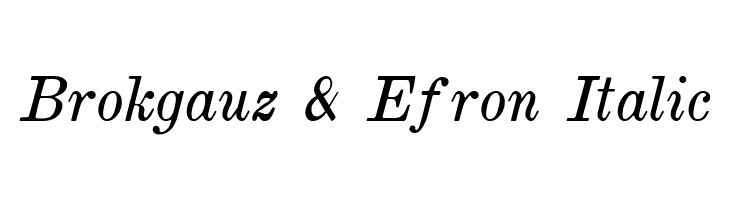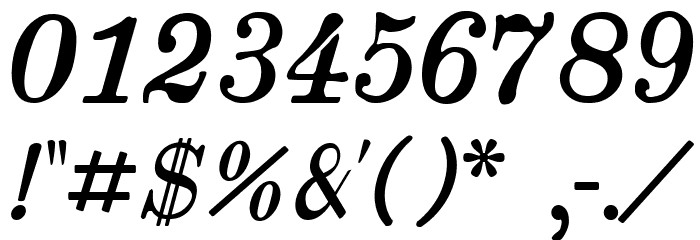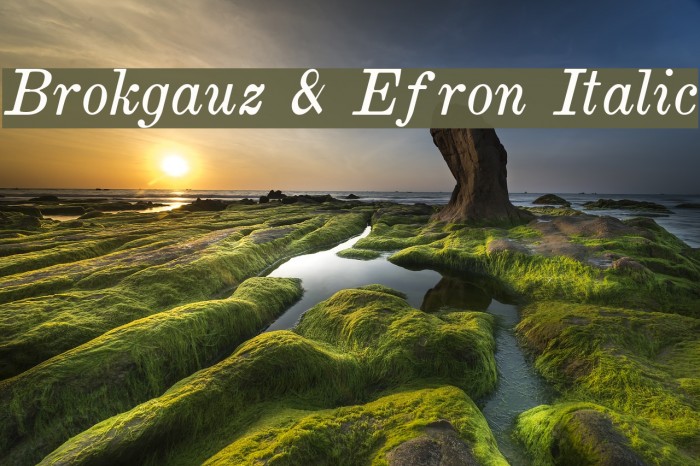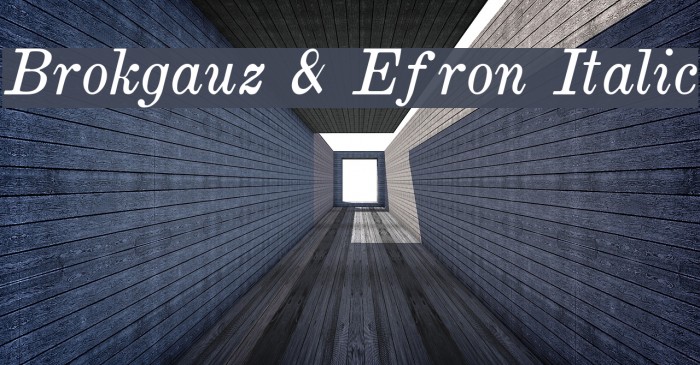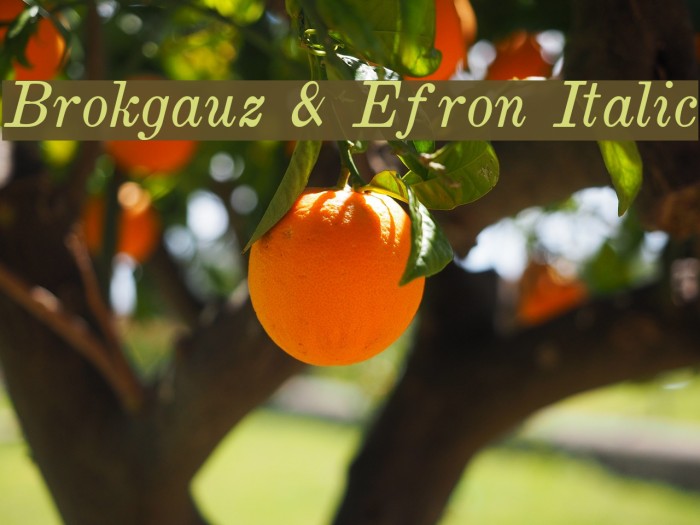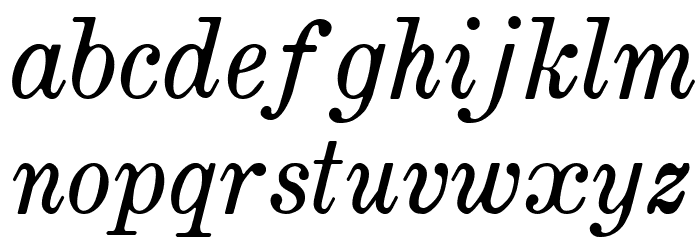
Brokgauz & Efron Italic Font
Brokgauz & Efron Italic Description
This elegant typeface features a classic italic style with a refined and sophisticated appearance. The letters are gracefully slanted, providing a sense of movement and fluidity. Each character is meticulously crafted with smooth curves and delicate serifs, giving it a timeless and traditional feel. The uppercase letters are bold and commanding, while the lowercase letters maintain a harmonious balance with their slightly rounded forms. The numerals are clear and distinct, ensuring readability. Special characters are thoughtfully designed to complement the overall aesthetic, making this typeface versatile for various applications.
| Overall Style | Classic |
| Use Case | Headlines, Logos, Editorial design |
| Proposed Projects | Ideal for formal invitations, elegant branding, book covers, and editorial design. |